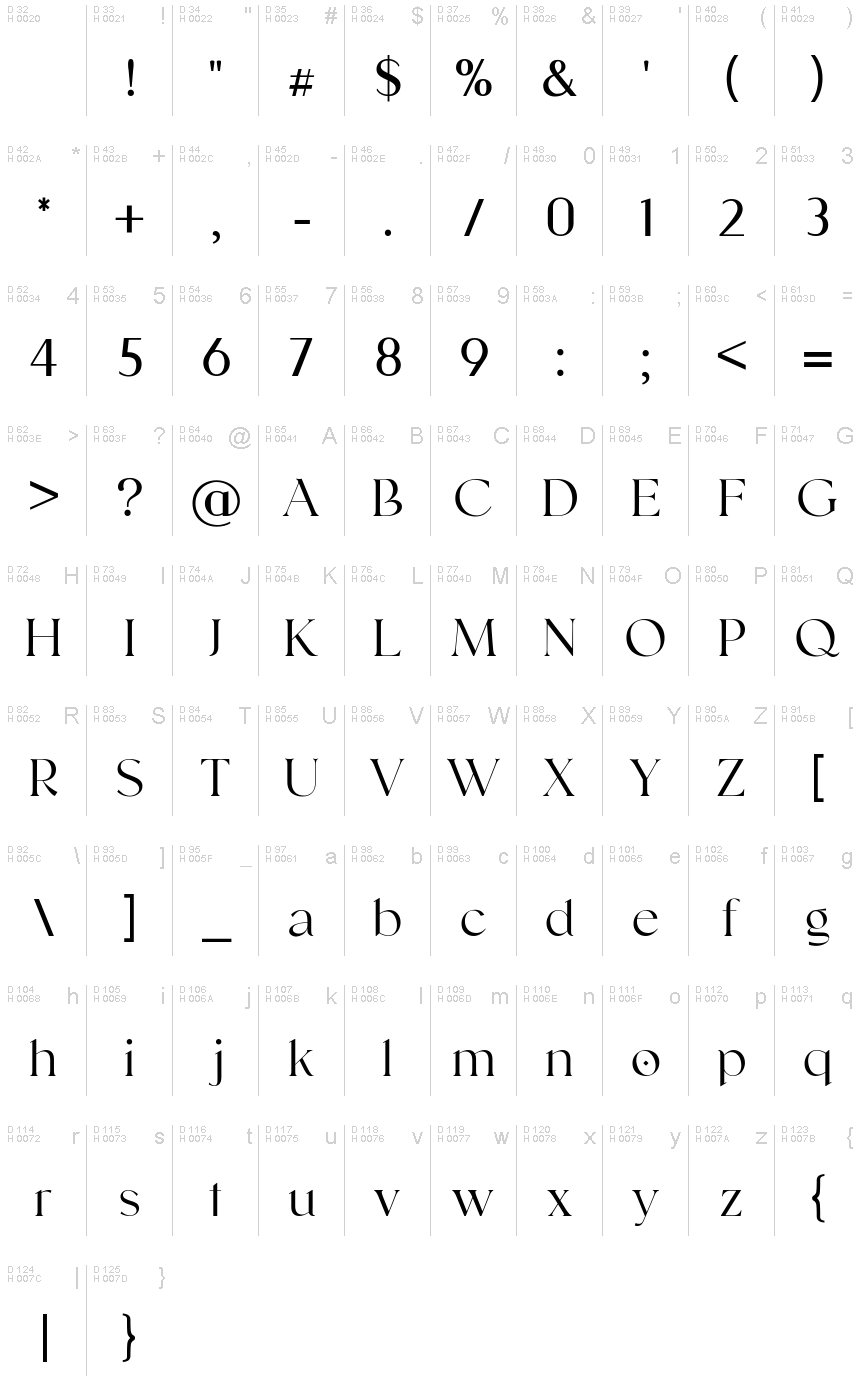
EleanorGoenka
Elegant and refined, the Eleanor Goenka font exudes a timeless sophistication. Crafted by the UI Creative design team, this serif typeface boasts a harmonious blend of traditional elegance and modern refinement. The graceful curves, subtle serifs, and balanced proportions create a visually appealing and refined aesthetic, making it a compelling choice for a wide range of design applications.
The Eleanor Goenka font's versatility shines through its ability to lend an air of sophistication and prestige to text-based designs. Its classic yet contemporary style makes it well-suited for high-end branding, editorial layouts, and formal communication pieces, where a touch of elegance and authority is desired. Equally at home in print and digital media, this font offers a timeless and polished solution for designers seeking to elevate their projects with a refined typographic presence.